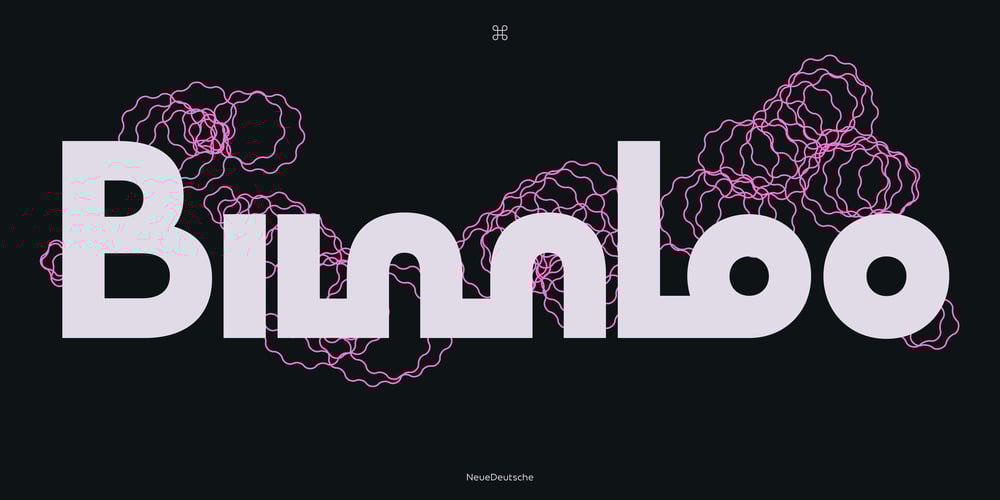
ND Bimbo Font Family was designed by Wolf Boese and published by NeueDeutsche. ND Bimbo contains 9 styles and family package options. The power of ND Bimbo is here now. If you like deep-fried candy bars you will like ND Bimbo. This playful design integrates art deco influences into a contemporary display style. As usual, it covers Latin, Cyrillic and Greek. Respect ND Bimbo now! Get ND Bimbo now! You want ND Bimbo now! Create Magic with ND Bimbo now!